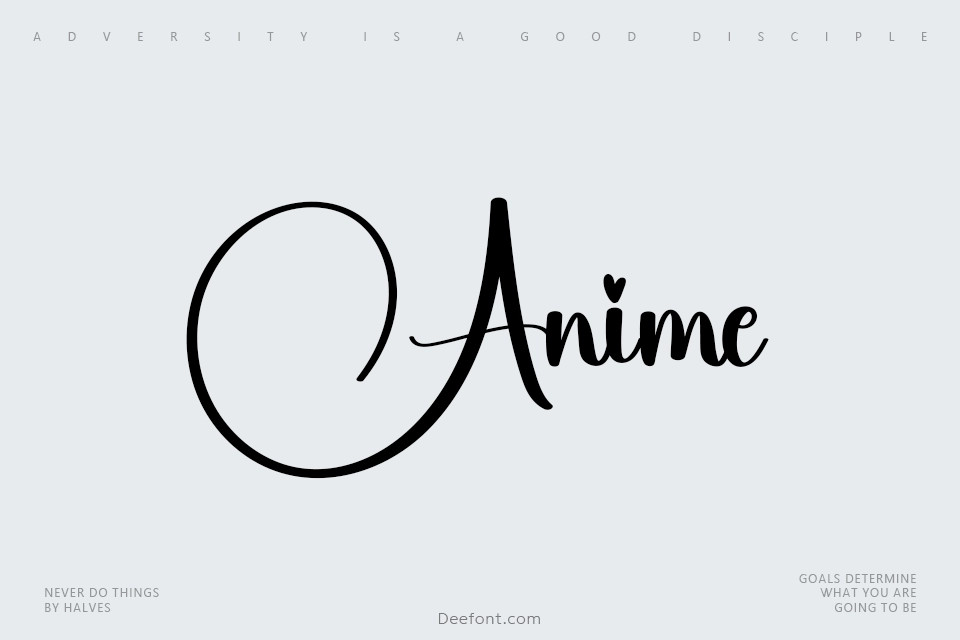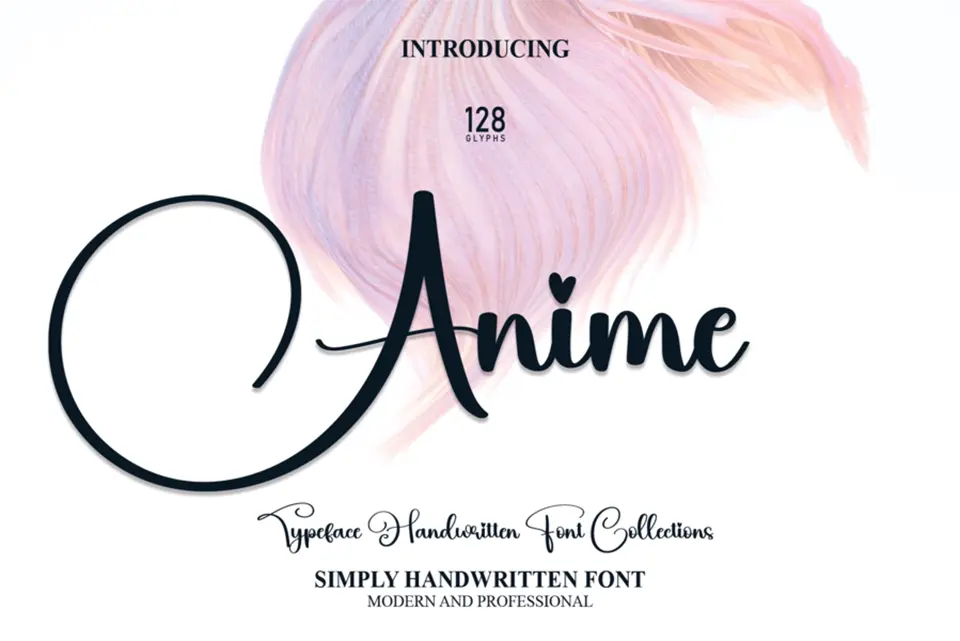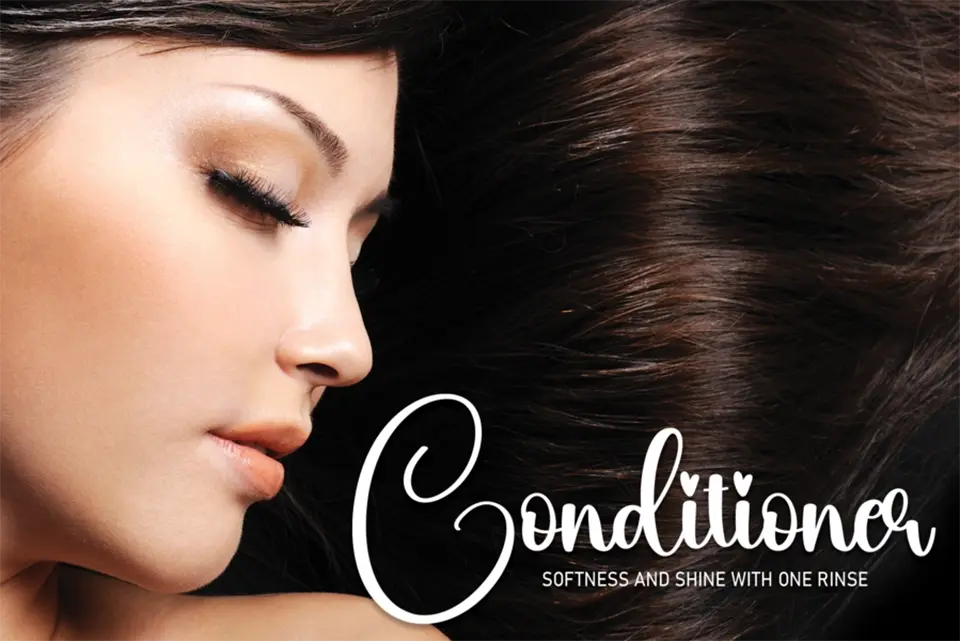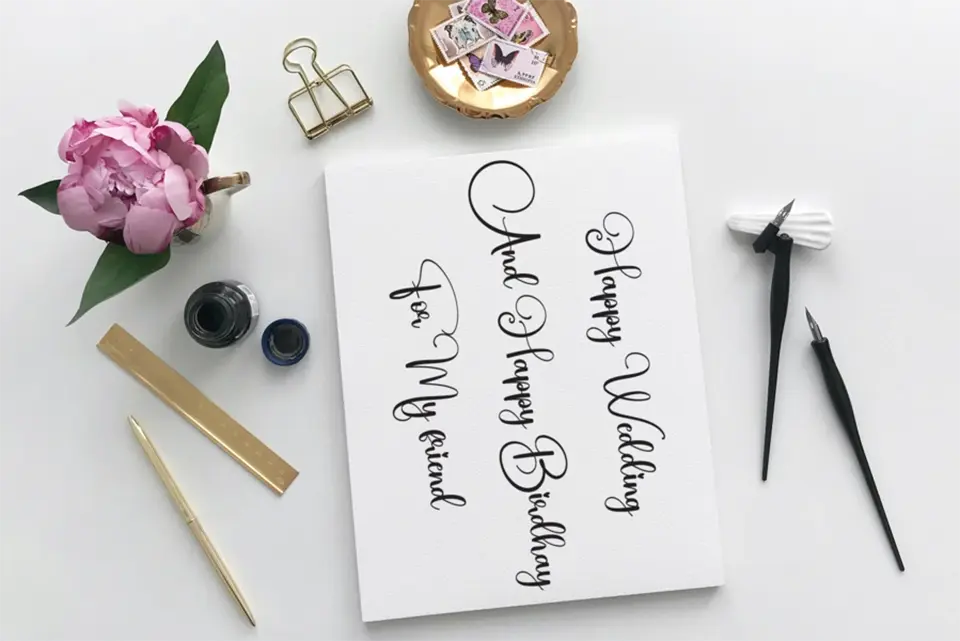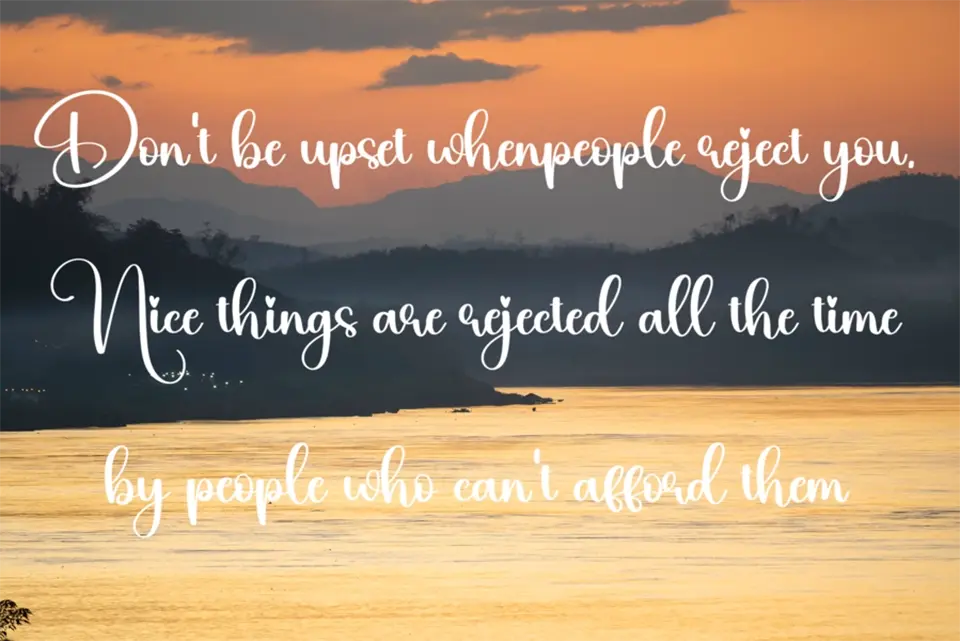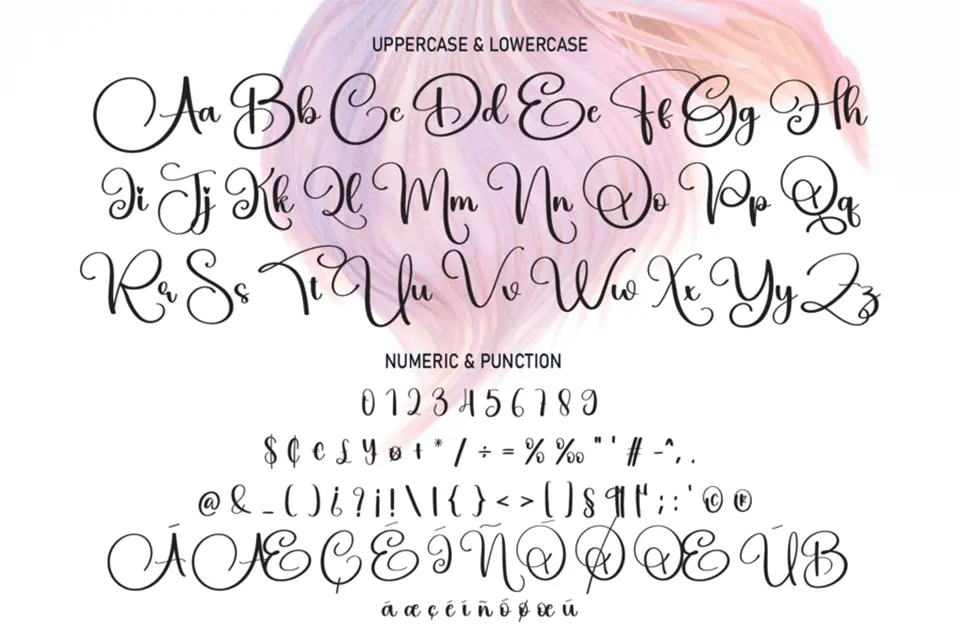
Anime Font
Anime Font is a sophisticated calligraphy typeface designed with elegant handwriting characteristics. This versatile display font delivers exceptional results for wedding invitations, social media graphics, product packaging, and creative branding projects. Its distinctive letterforms combine contemporary flair with artistic charm, making it ideal for marketing materials, wallpapers, labels, and any project demanding refined aesthetic appeal.